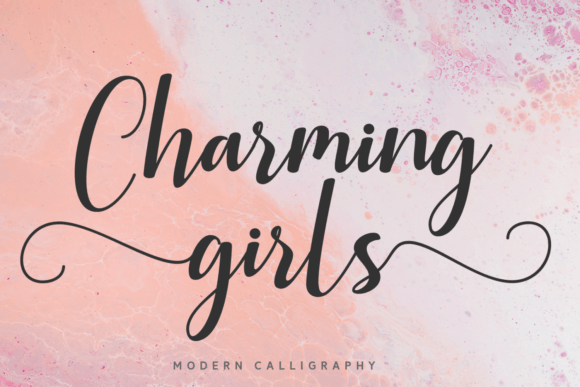
Get ready to be captivated by the beauty and elegance of Charming Girls Font, a remarkable script font that will add a touch of sophistication to your creative endeavors. This stunning font, brought to life by the skilled designers at Creative Fabrica Fonts, is a masterpiece that will transform your projects into works of art.
Unleash the magic of Charming Girls and witness how effortlessly it transforms your designs. Its alluring curves, delicate swashes, and elegant letterforms will leave a lasting impression on your audience. Whether you're crafting logos, invitations, greeting cards, or adding a touch of charm to your watermarks, this font will elevate your creations to new heights.
Immerse yourself in the world of Charming Girls and discover a font that's more than just a collection of characters. It's an expression of individuality, a reflection of your unique style. Let your creativity flow freely as you explore the endless possibilities that this font presents.
With a full range of glyphs and swashes, Charming Girls is a versatile font that caters to your every design need. Accessing these special characters is a breeze, thanks to the font's PUA encoding. Unleash your imagination and let your designs shine with the brilliance of Charming Girls.